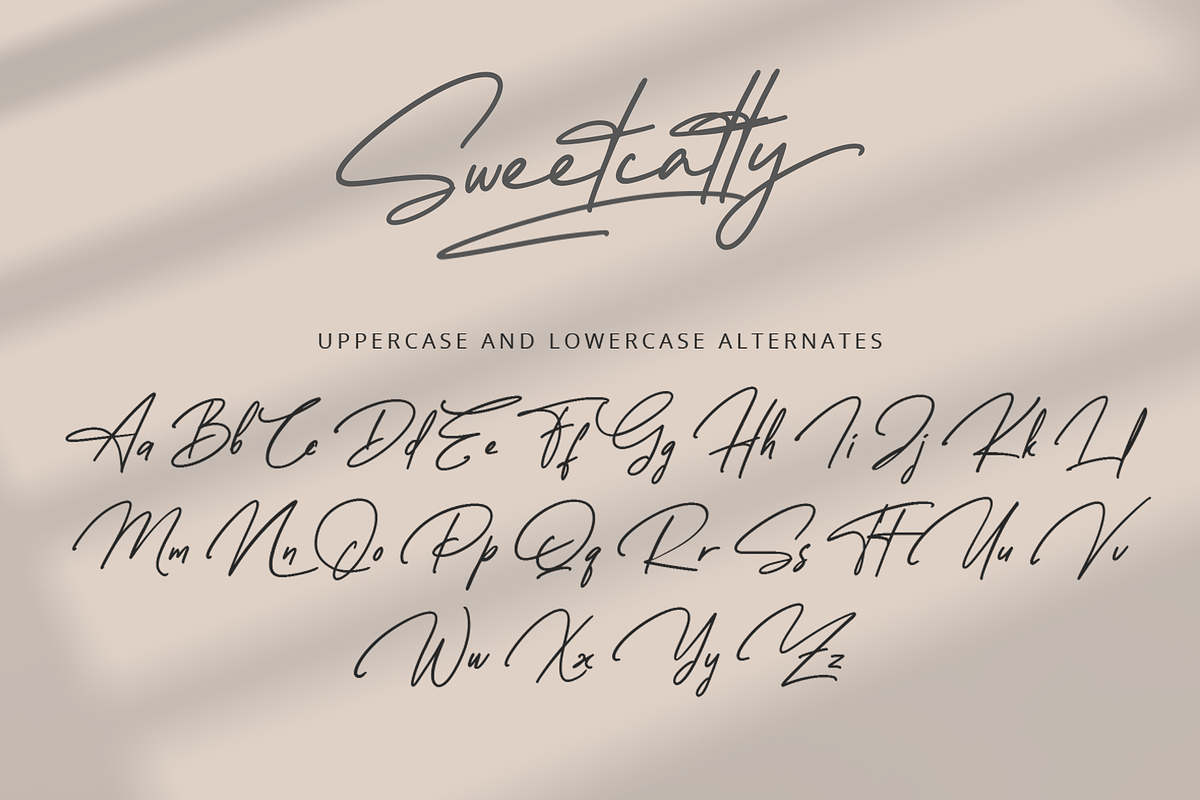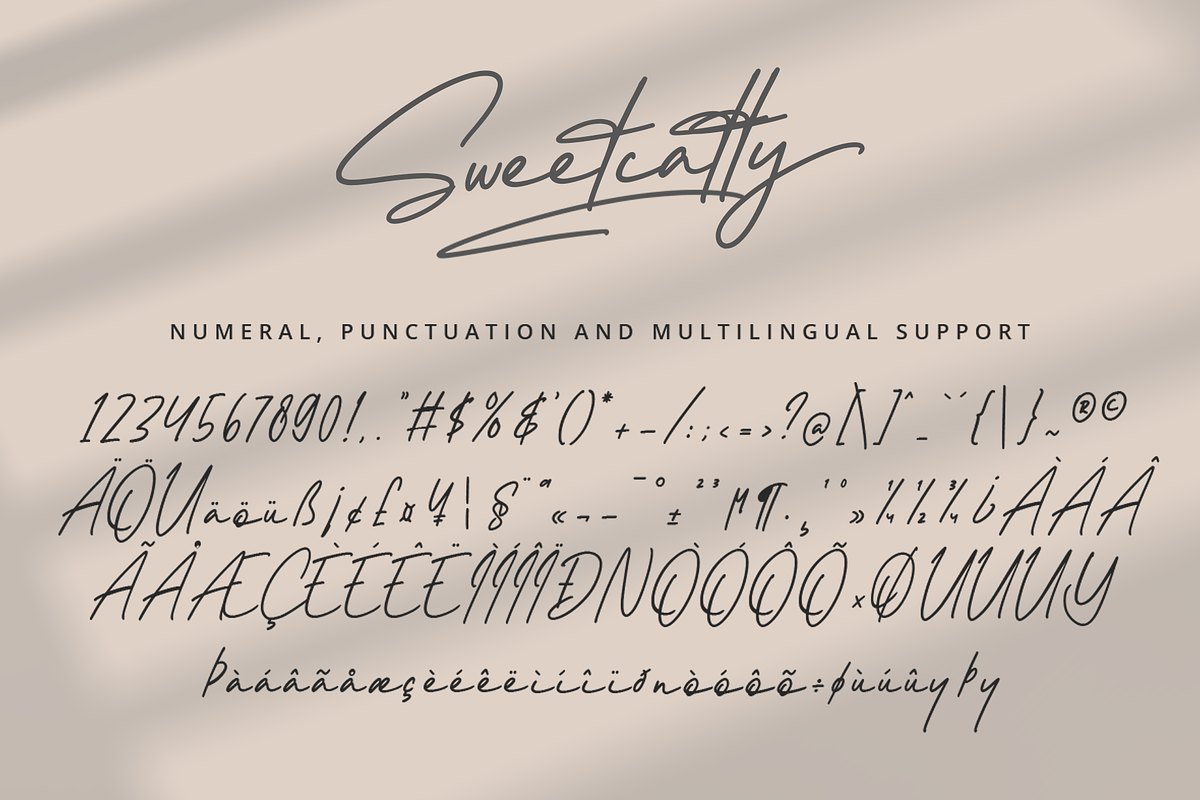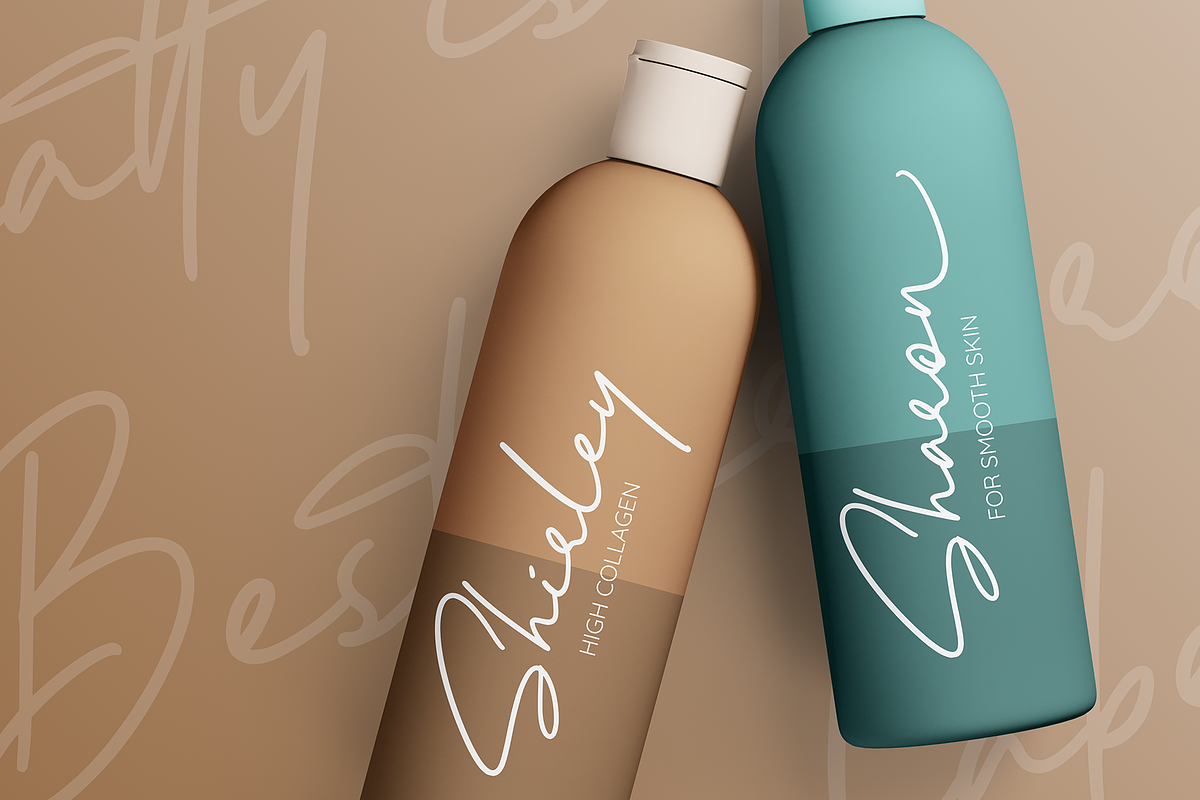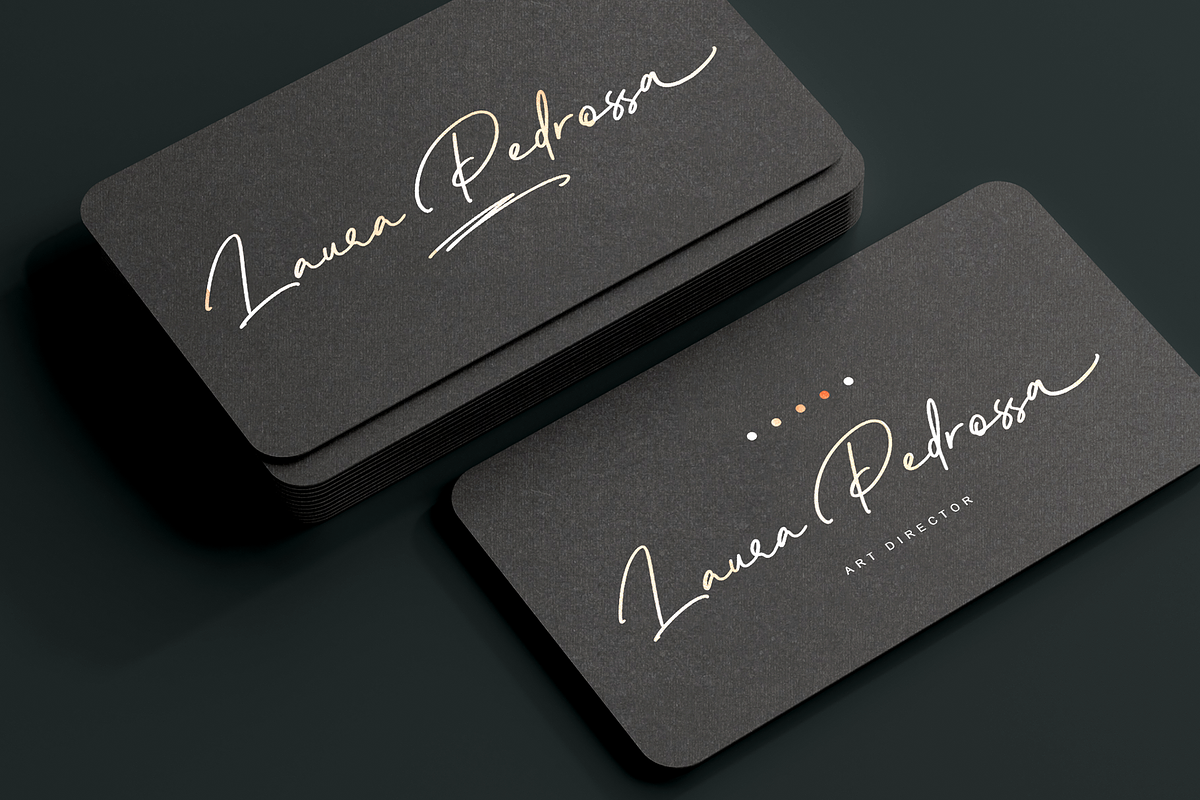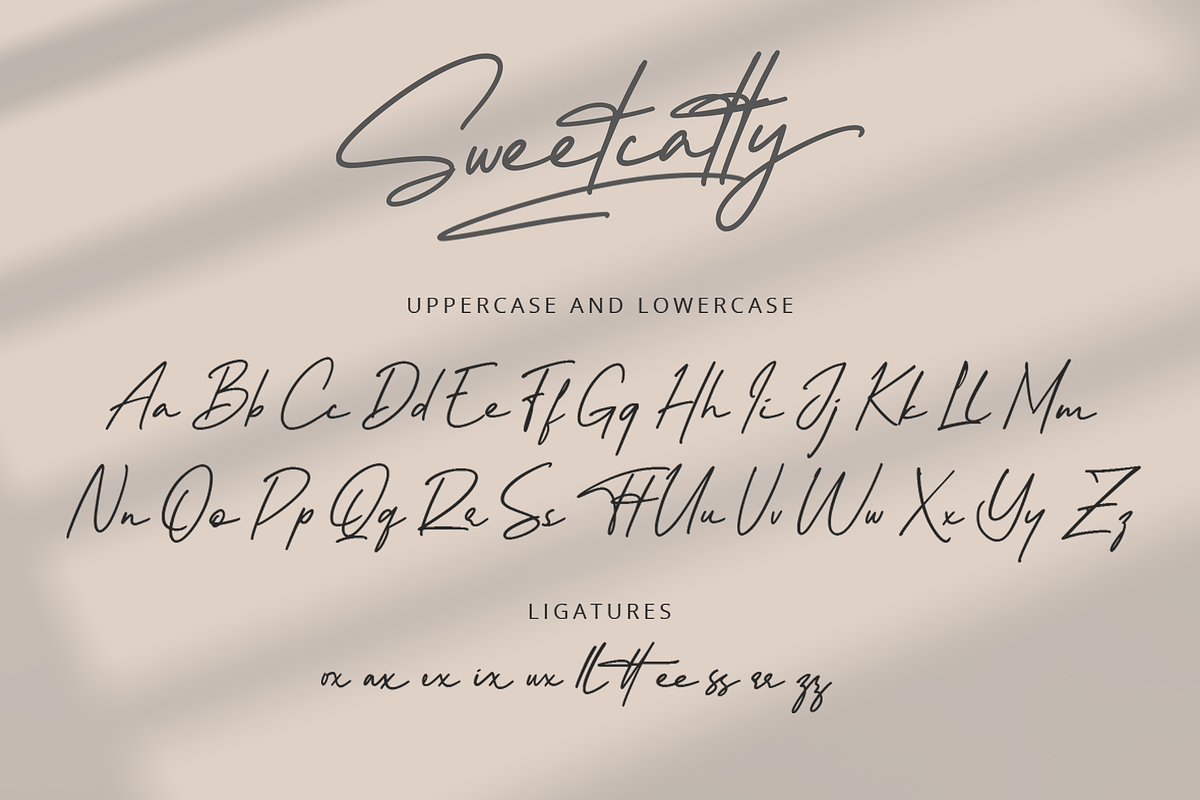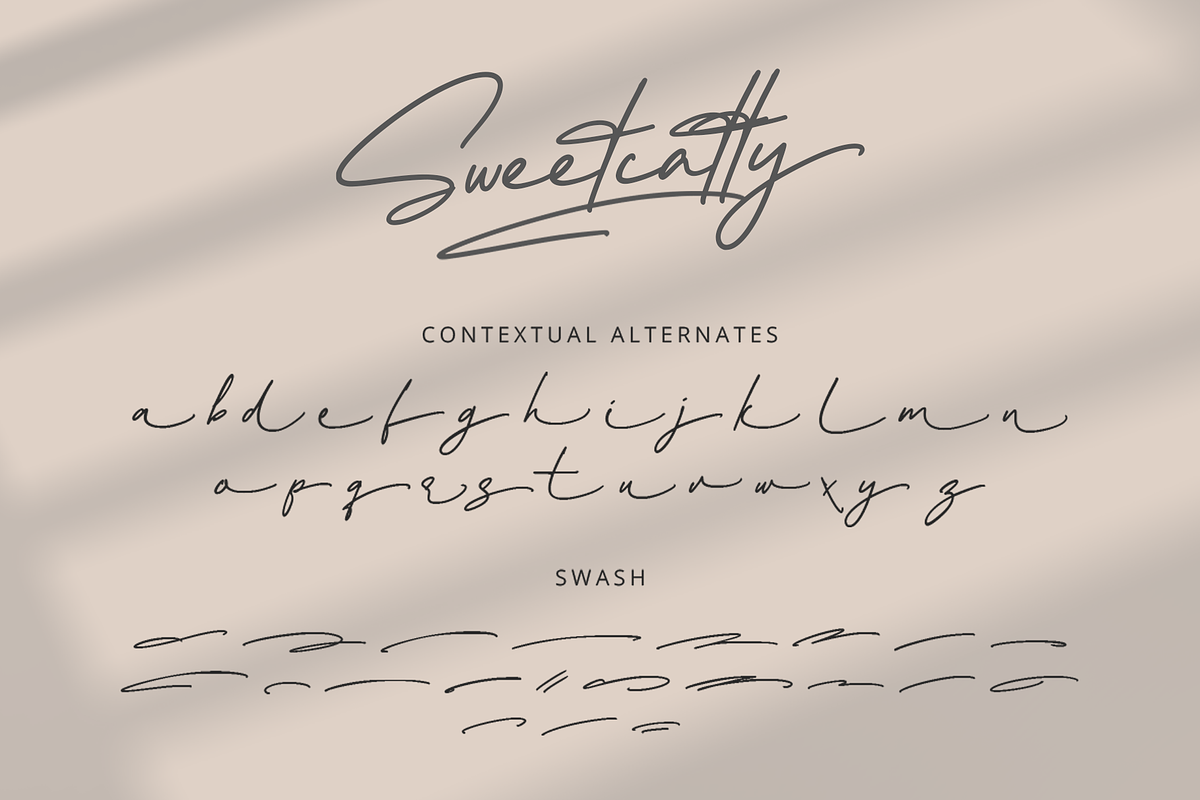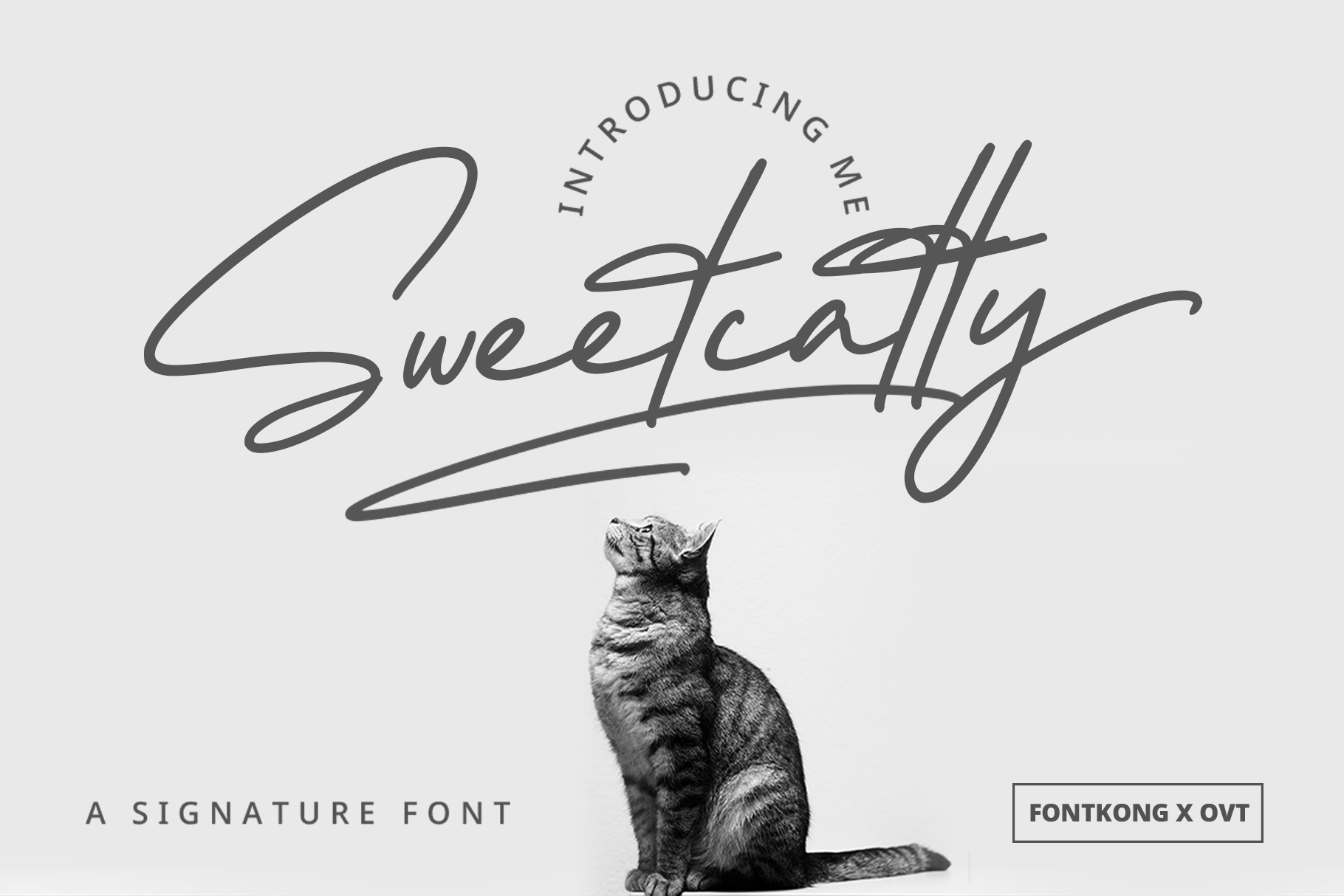
Sweetcatty - A Signature Font
Sweetcatty is a charming and elegant signature font designed to add a personal and refined touch to your design projects. With its graceful curves and stylish letterforms, Sweetcatty is perfect for high-end branding, elegant invitations, personal signatures, and sophisticated logos. This font embodies the essence of handwritten sophistication, ensuring your work stands out with a unique and refined style.
Crafted with meticulous attention to detail, Sweetcatty features smooth and flowing characters that offer excellent readability and visual appeal. Its elegant design makes it ideal for both display and text purposes, providing a cohesive and polished look across all your visual communications. The font’s versatility allows it to integrate seamlessly into various design contexts, from digital platforms to printed materials.
Elevate your design projects with Sweetcatty, a font that captures the perfect blend of personal charm and elegance. Its distinctive style and adaptability make it an essential addition to any designer’s toolkit for creating refined and captivating visuals. Enhance your work with Sweetcatty and experience the allure of sophisticated handwritten typography.